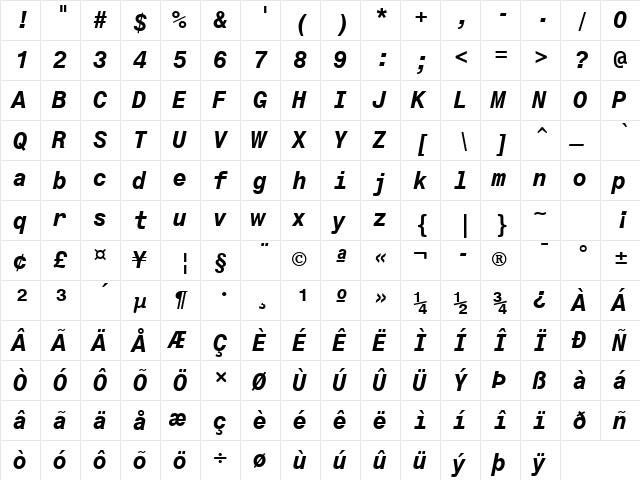
Monospac821 BT Bold Italic Font Preview
Design Context for Monospac821 BT Typeface
Monospac821 BT brings the precise, column-aligned rhythm of monospaced typography to designs that value technical clarity and systematic order. The dynamic lean of this cut emphasises speed and emphasis in any layout. Its bold stroke weight gives it real presence on the page.
Pro Tip: Use Monospac821 BT with slightly increased line-height for extended reading — fixed-width spacing can feel dense in longer passages without extra breathing room.